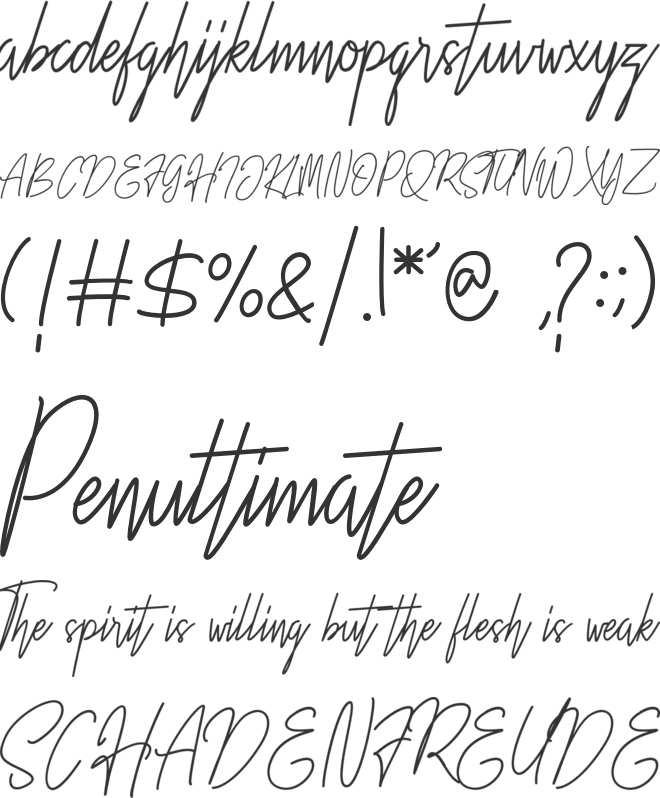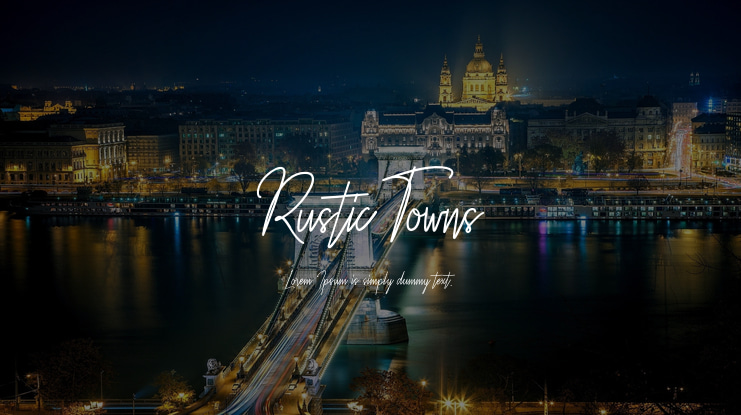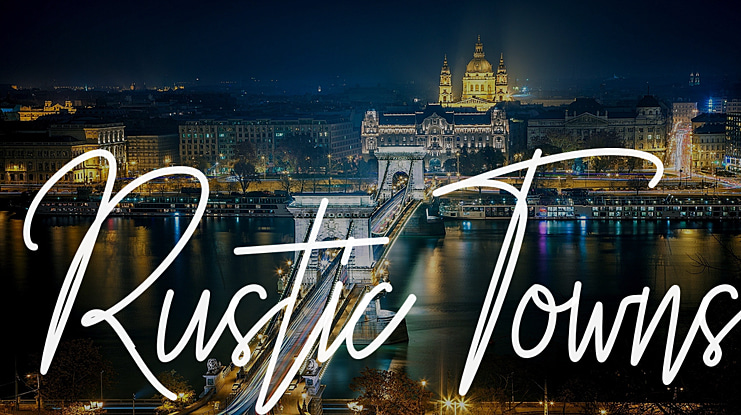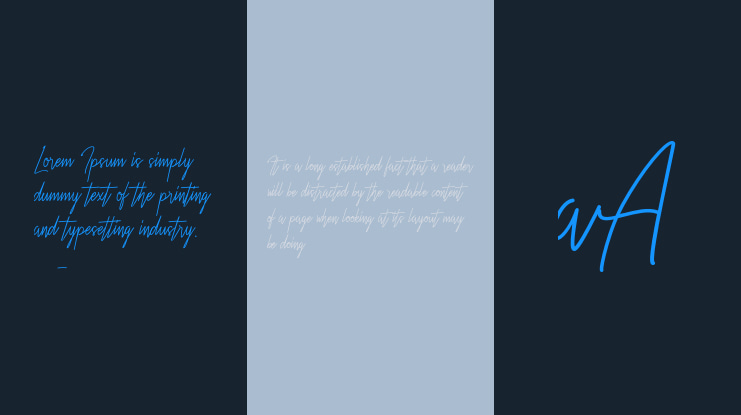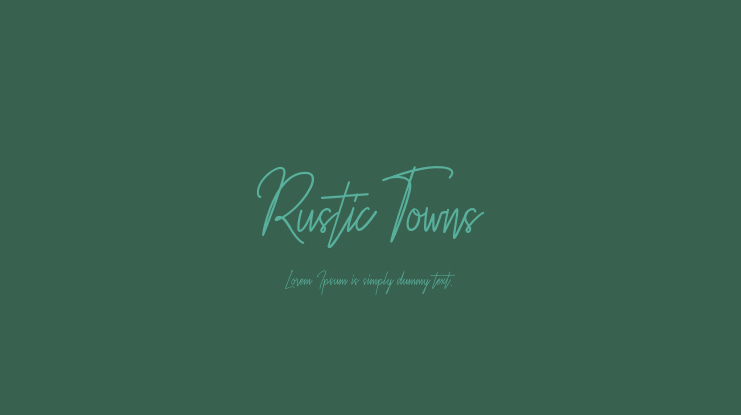
Rustic Towns Font
Introducing of our new product the name is Rustic Towns Signature font. inspired by signature and stylish handwriting, perfect for many different project such as logos & branding,Photography, invitation, stationery, wedding designs, social media posts, advertisements, product packaging, product designs, label, photography, watermark
Rustic Towns font preview